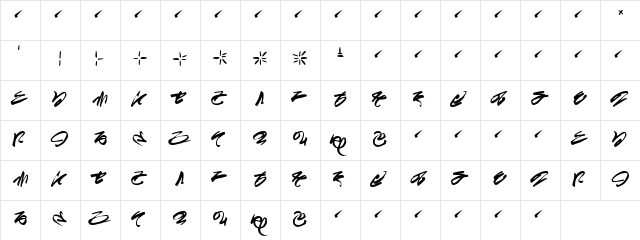
Miskatonic Regular Font Preview
Miskatonic Regular
Miskatonic Regular Font Details
Design Context for Miskatonic Typeface
Miskatonic is a composed and adaptable typeface that performs quietly and consistently across a wide range of design contexts.